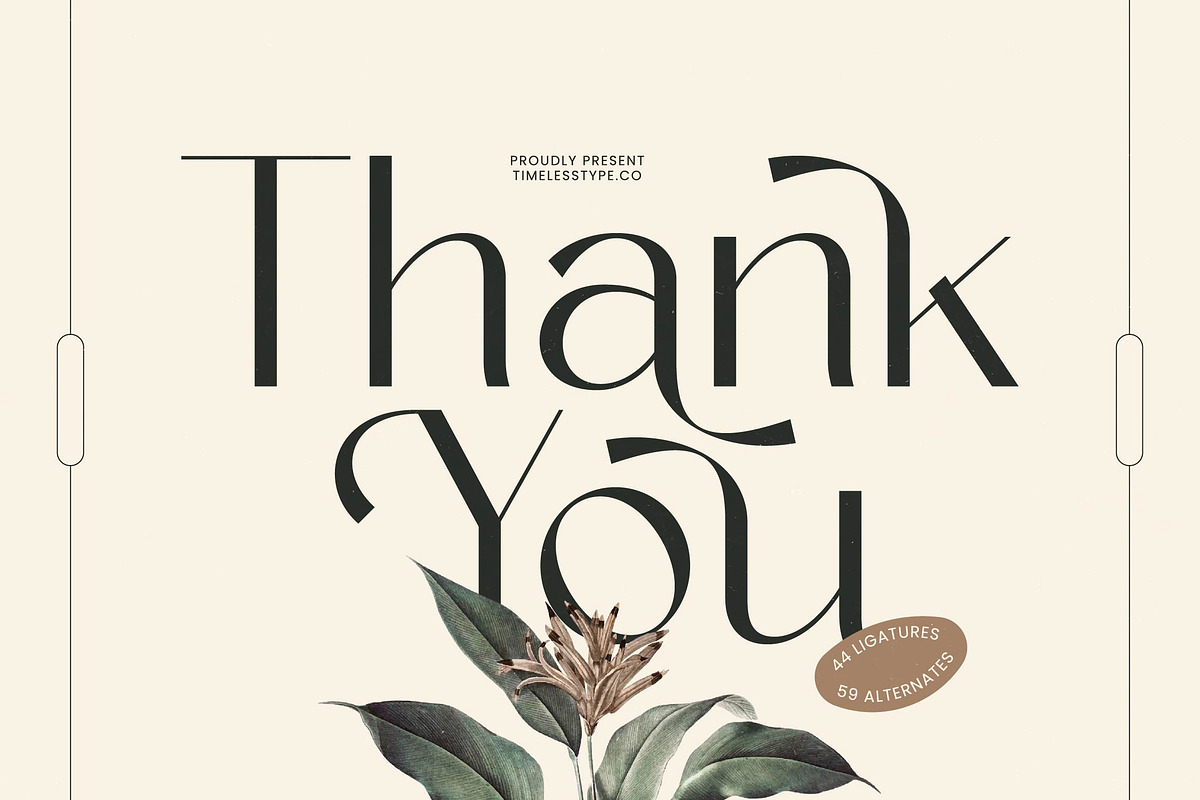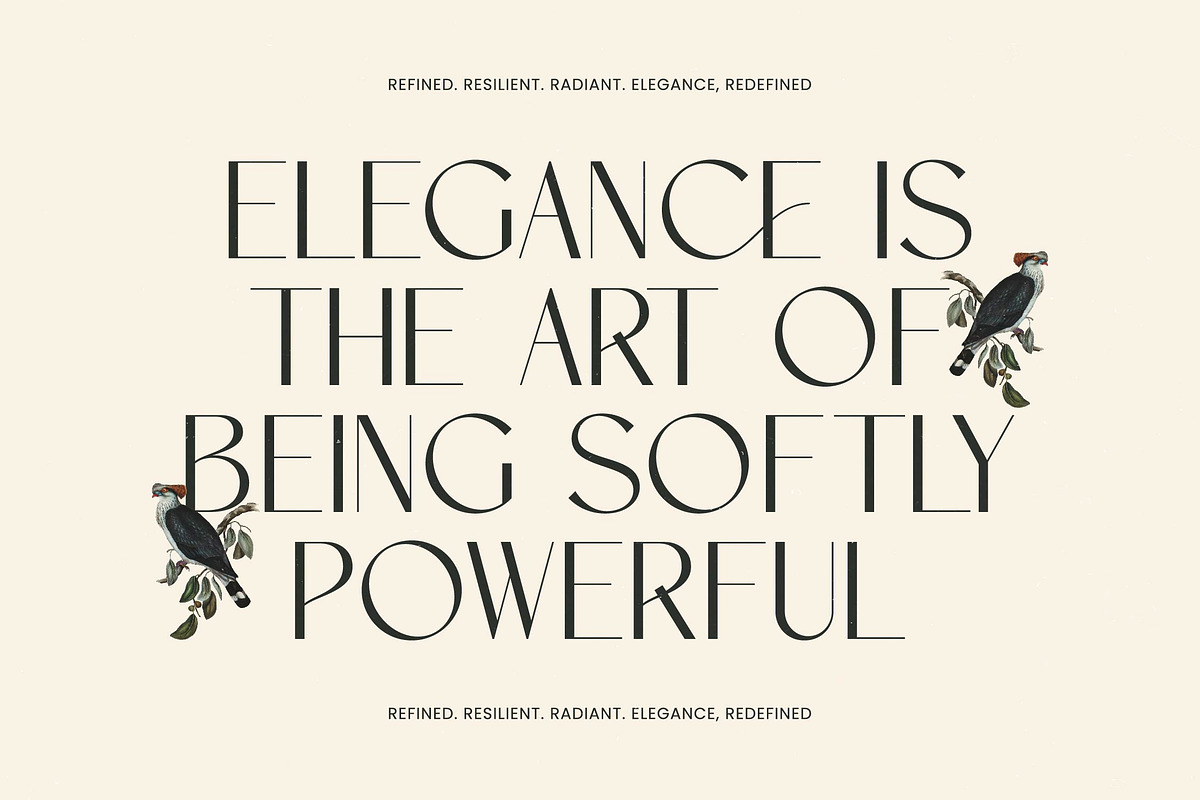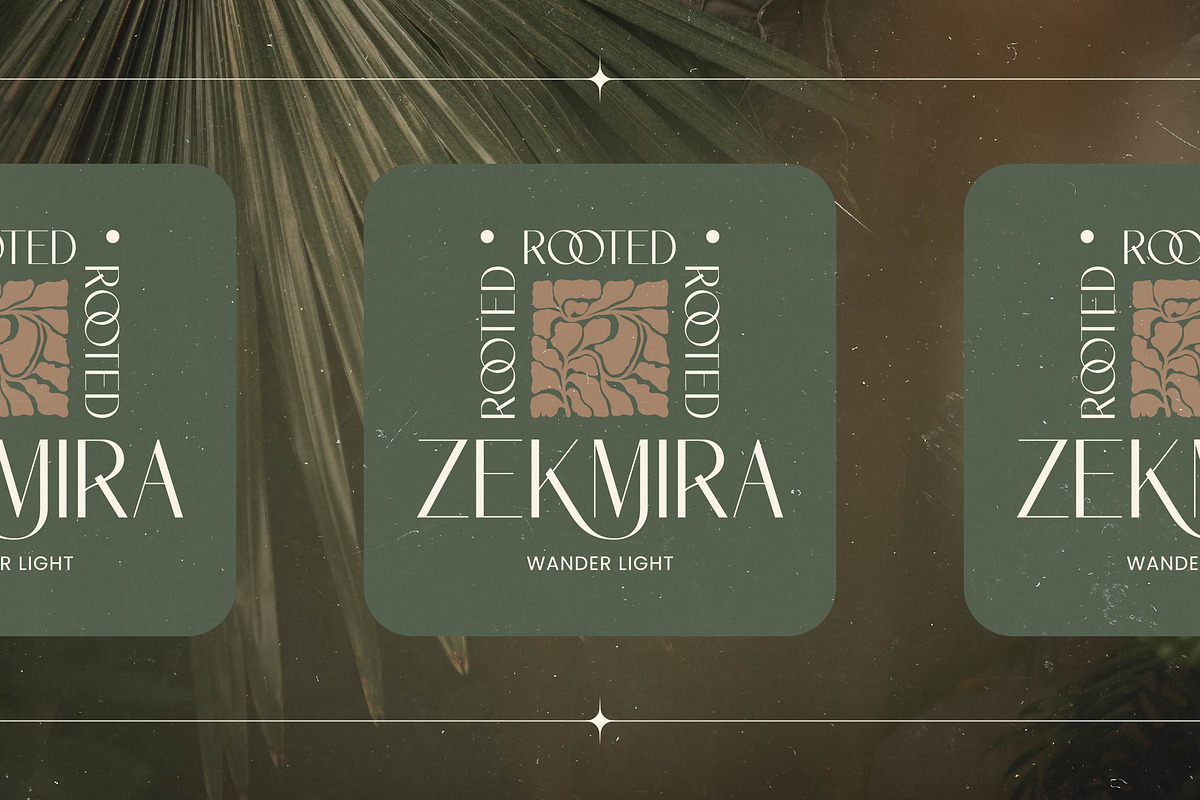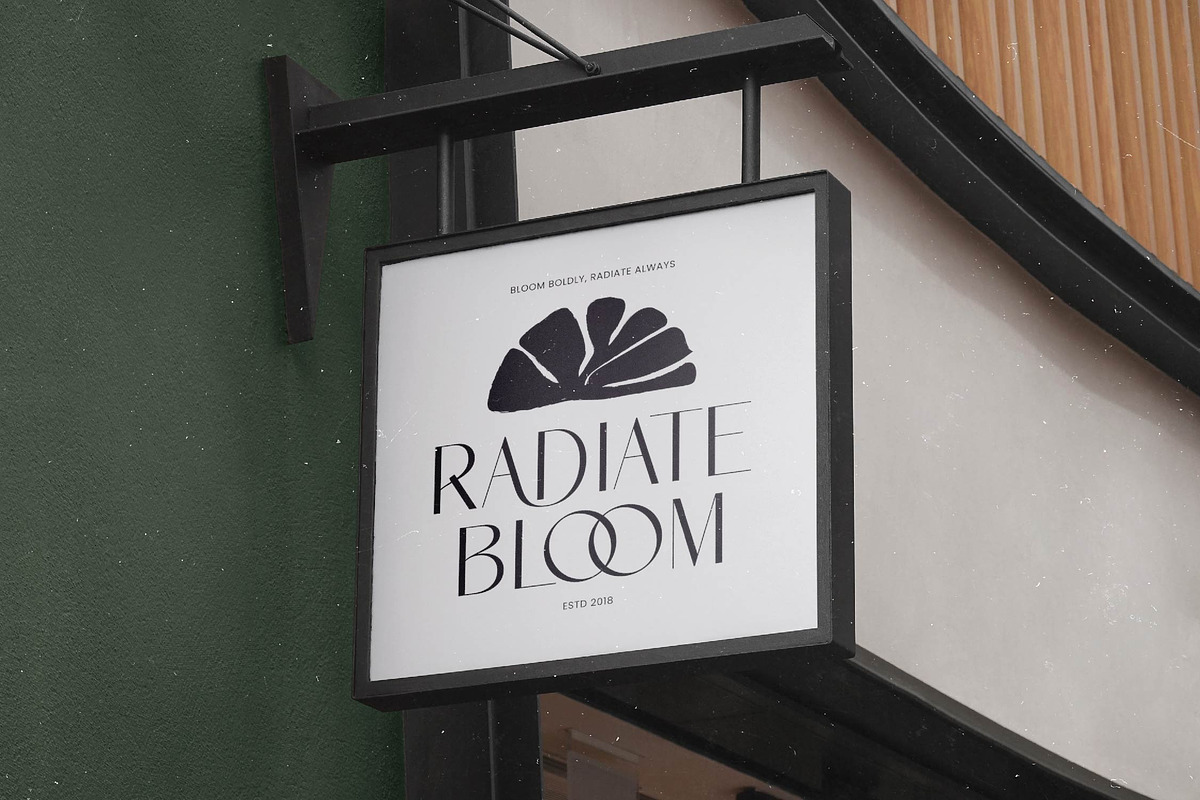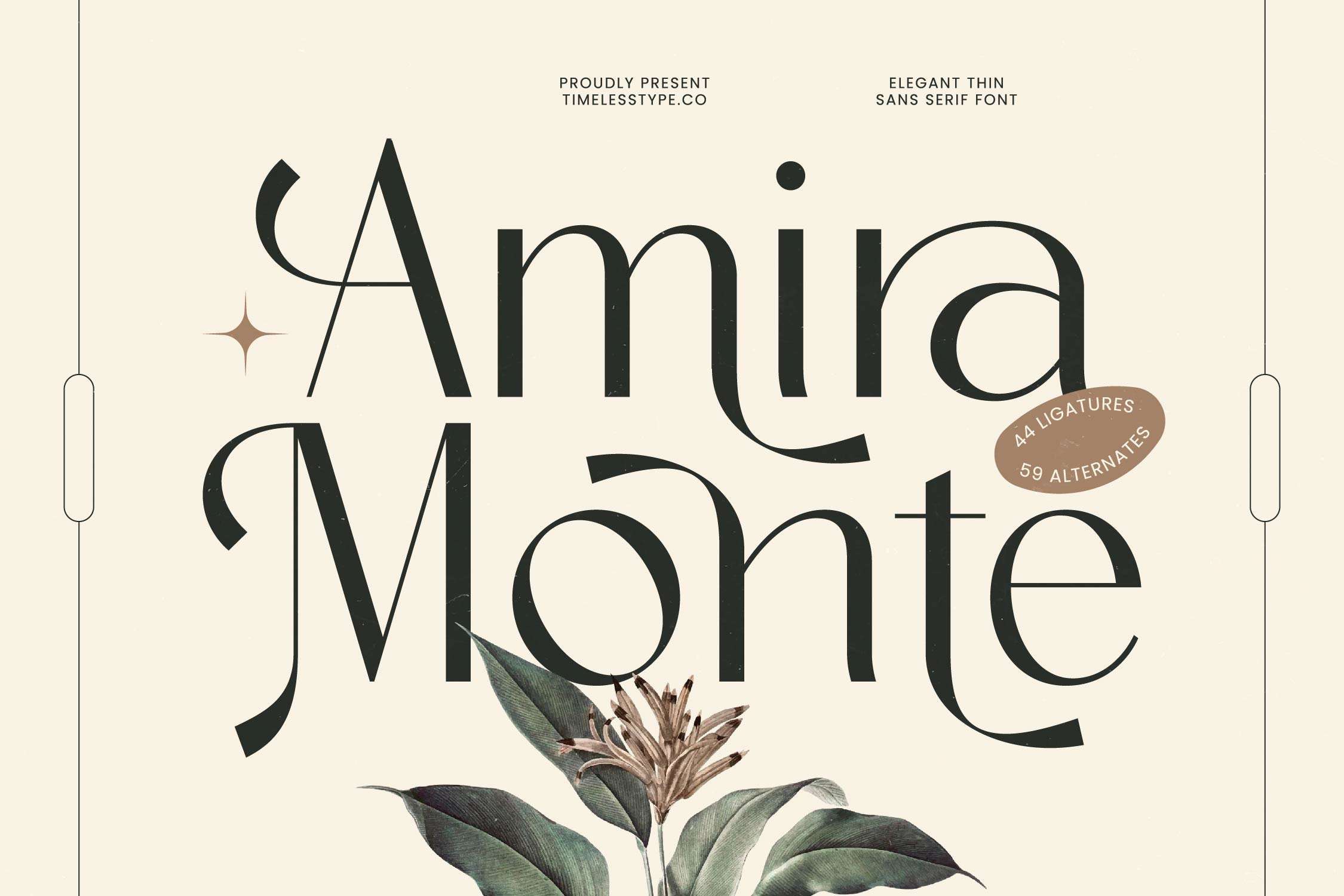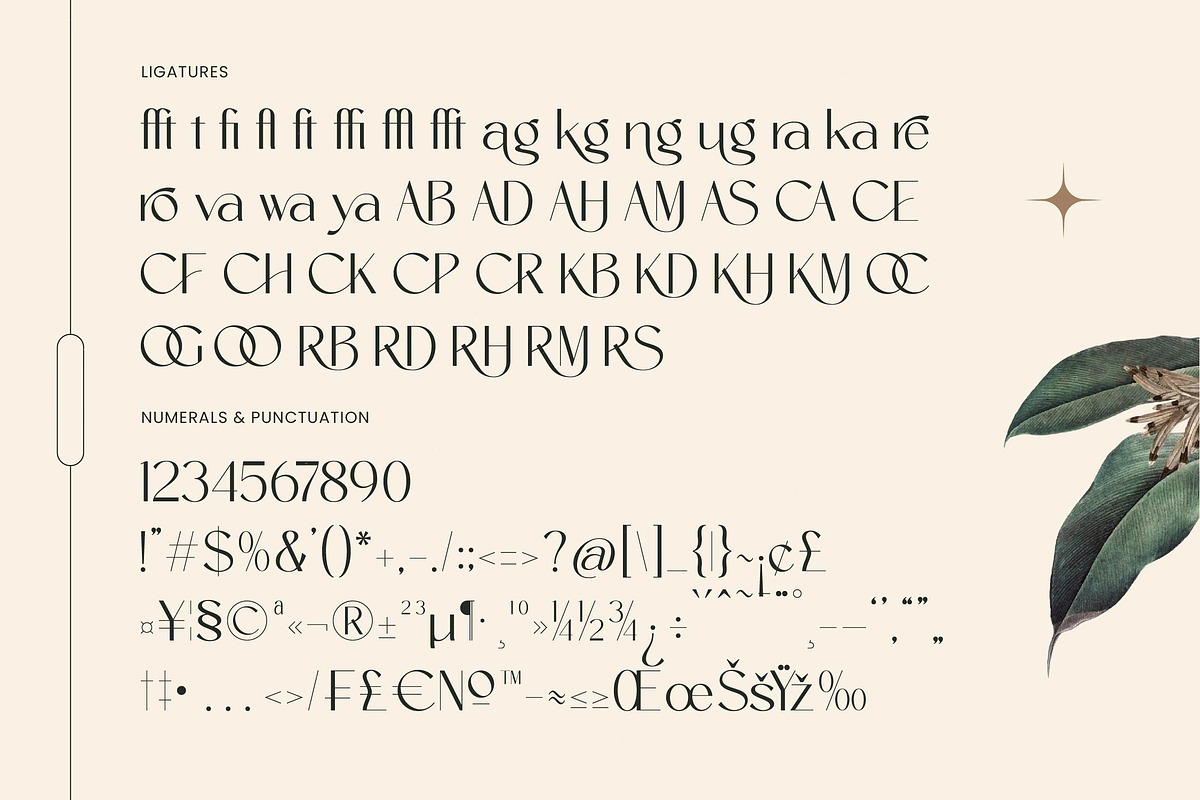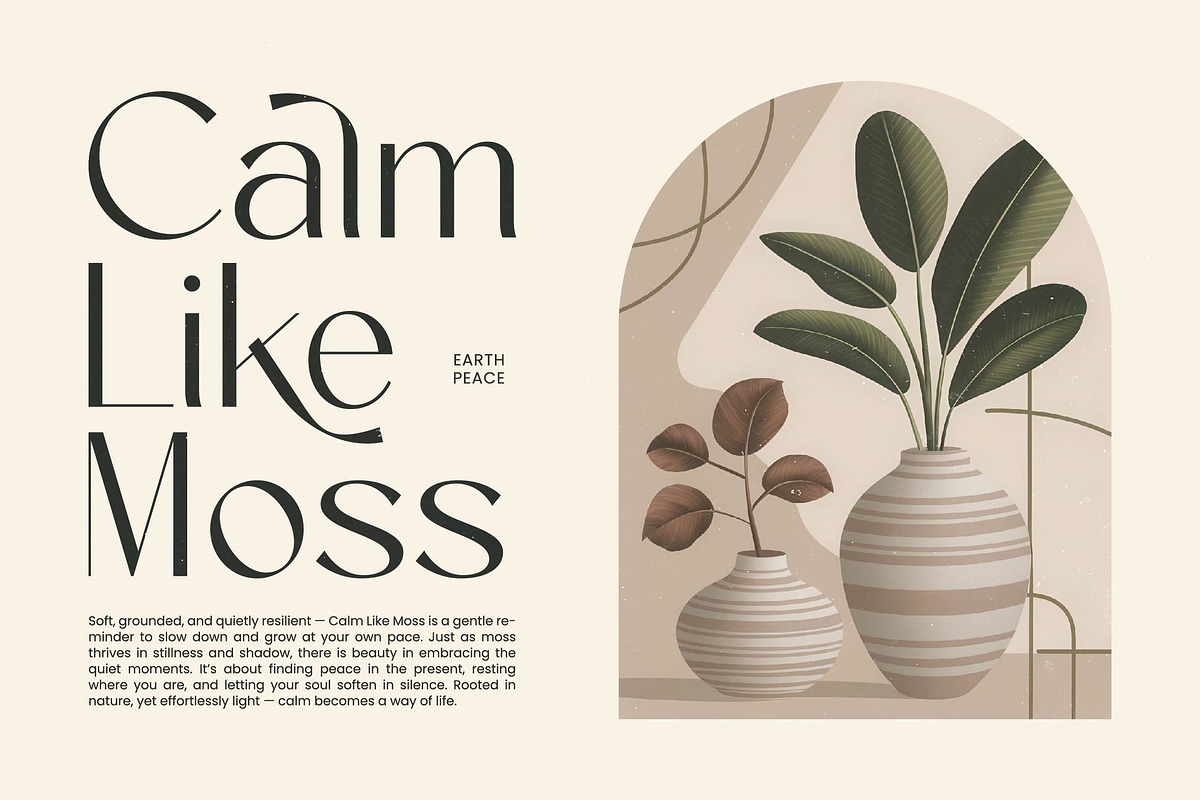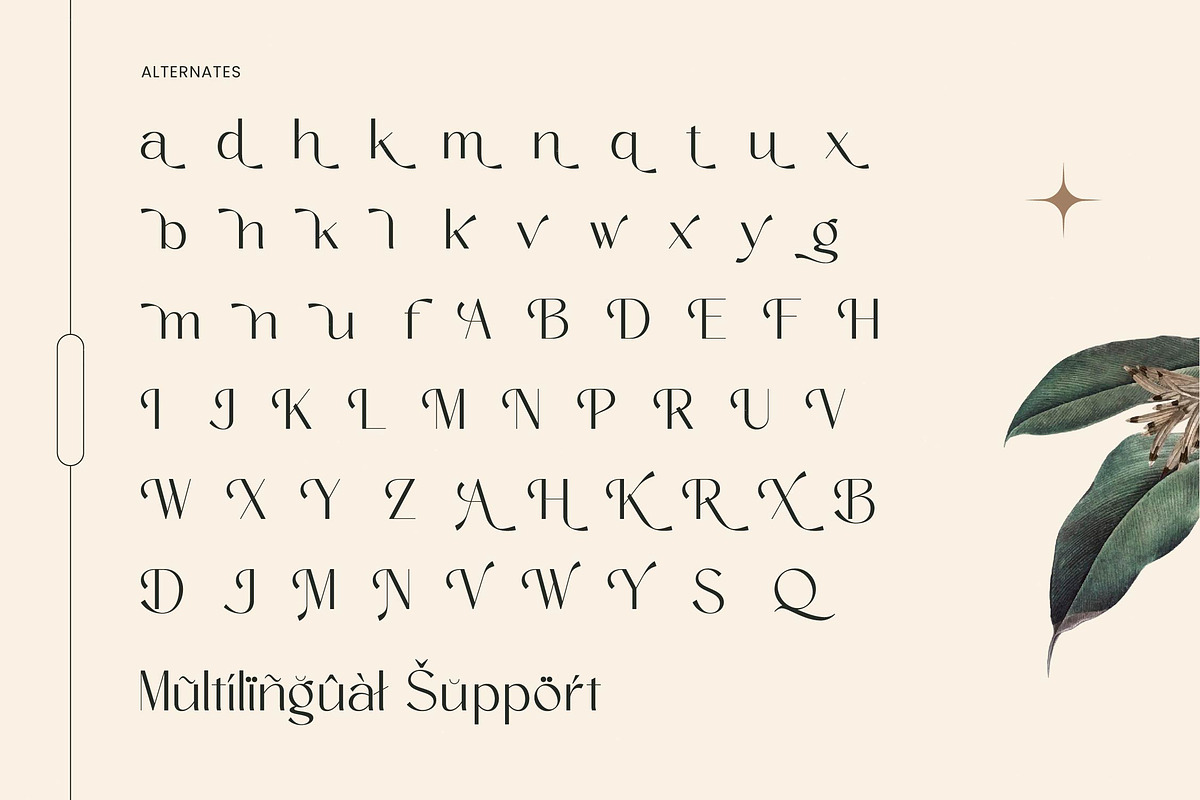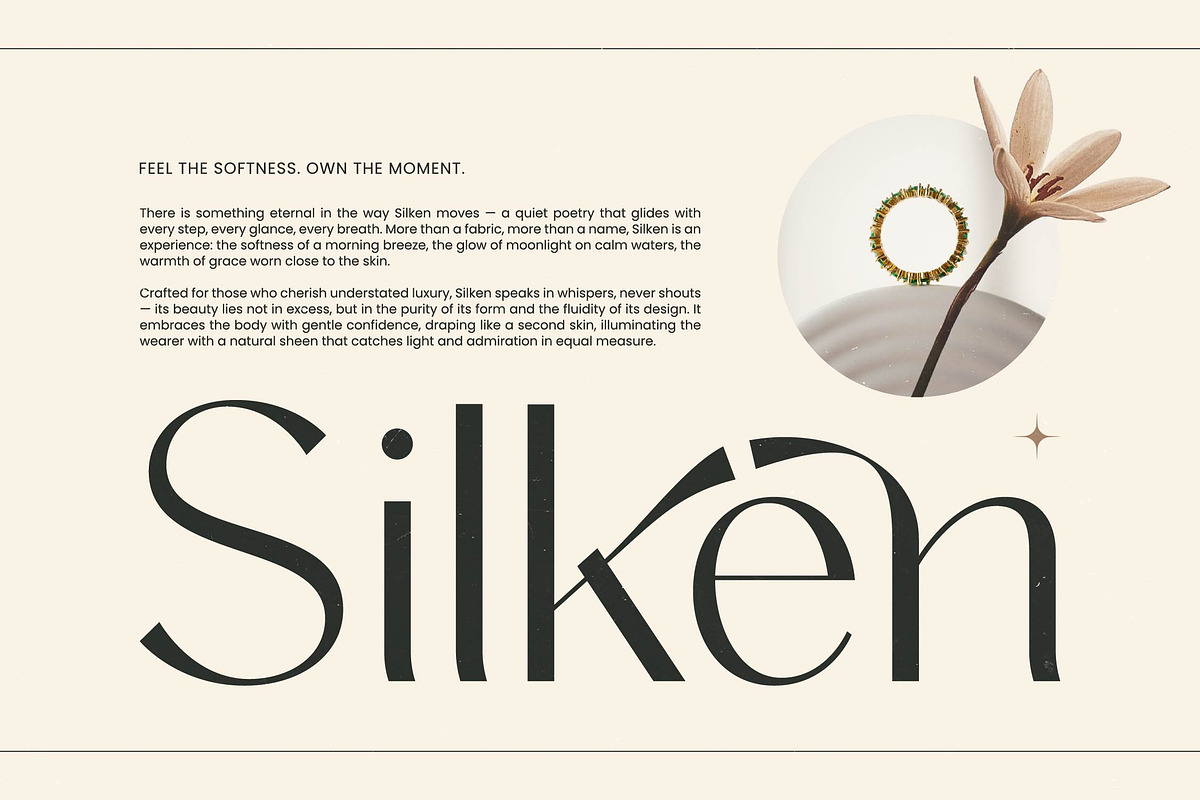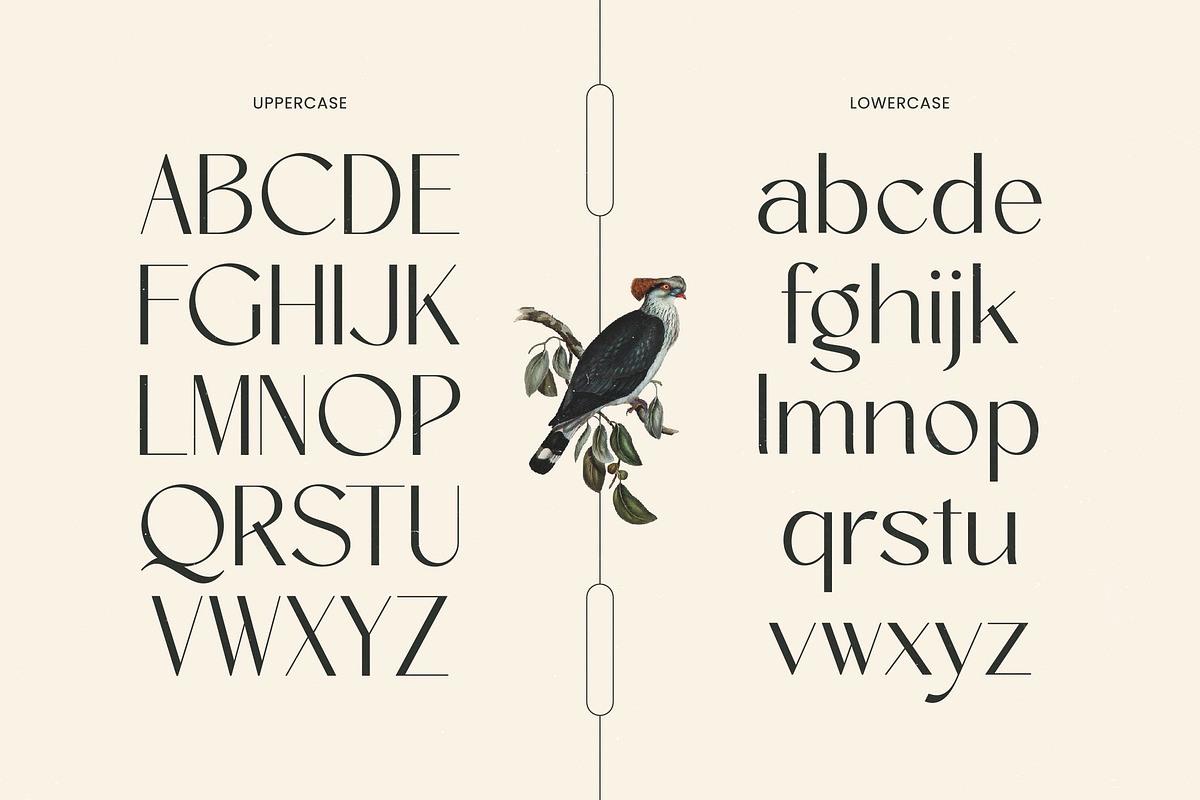
Amira Monte Elegant Display Font
Elevate your creative vision with the ethereal beauty of Amira Monte, a typeface that embodies the pinnacle of sophisticated design. This font is a love letter to high-end aesthetics, ensuring your message is delivered with unparalleled grace and poetic flair.
Born from the intersection of classical proportions and contemporary minimalism, the inspiration behind this typeface lies in the quiet luxury of botanical gardens and haute couture. It evokes an atmosphere of timeless charm, making every word feel like a carefully curated piece of art.
This modern serif display is meticulously crafted to provide a sense of luxury typography that commands attention. With its high-contrast serif structure, it serves as an essential editorial font for those looking to create a lasting branding impact through refined and delicate letterforms.
Riding the crest of the modern serif trend, this typeface is a quintessential addition to the library of any designer seeking editorial display fonts. It embraces the move toward character-driven typography, offering a unique voice that distinguishes your work from the mainstream.
From the precision required for logo design to the expansive needs of corporate branding, this font performs beautifully across all mediums. It is the perfect choice for high-fashion editorial spreads, premium product packaging, elegant wedding invitations, and sophisticated fashion branding.
The technical versatility is unmatched, featuring an extensive library of ligatures and alternates that allow for endless customization. With decorative swashes and comprehensive multilingual support for international characters, it is ready to elevate global brands with ease.
- Ligature 44 Alternate 59